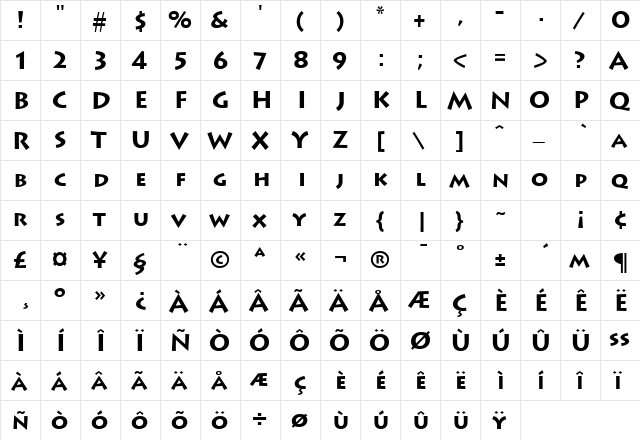
LeeToscanini7 BoldSH
Design Context for LeeToscanini7 Typeface
LeeToscanini7 takes a measured approach to typography — its balanced proportions and neutral character make it a reliable workhorse for both digital and print work. Its bold stroke weight gives it real presence on the page.